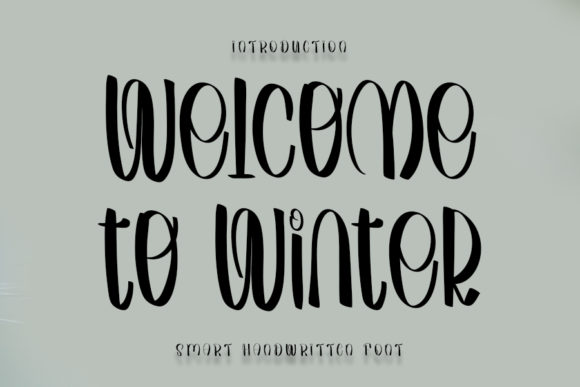
Prepare to be swept away by Welcome to Winter, a captivating script font that embodies the very essence of winter. Its enchanting handwritten strokes evoke a sense of timeless elegance, making it the perfect choice for capturing the magic of any occasion.
Imagine your words dancing across the page as Welcome to Winter brings your designs to life. Its delicate curves and graceful flourishes create a captivating visual masterpiece, adding a touch of whimsy and romance to every letter. Whether you're designing enchanting invitations or crafting heartfelt stationery, this font will elevate your creations to new heights.
Welcome to Winter's versatility knows no bounds. It effortlessly complements everything from chic logos and sophisticated branding to heartfelt wedding designs and captivating social media posts. Its timeless appeal makes it a must-have for any designer seeking to create truly memorable and captivating content.
With Welcome to Winter, you're not just downloading a font – you're inviting the warmth and magic of winter into your designs. Let its enchanting strokes ignite your creativity and transport your audience to a realm of whimsical delight.